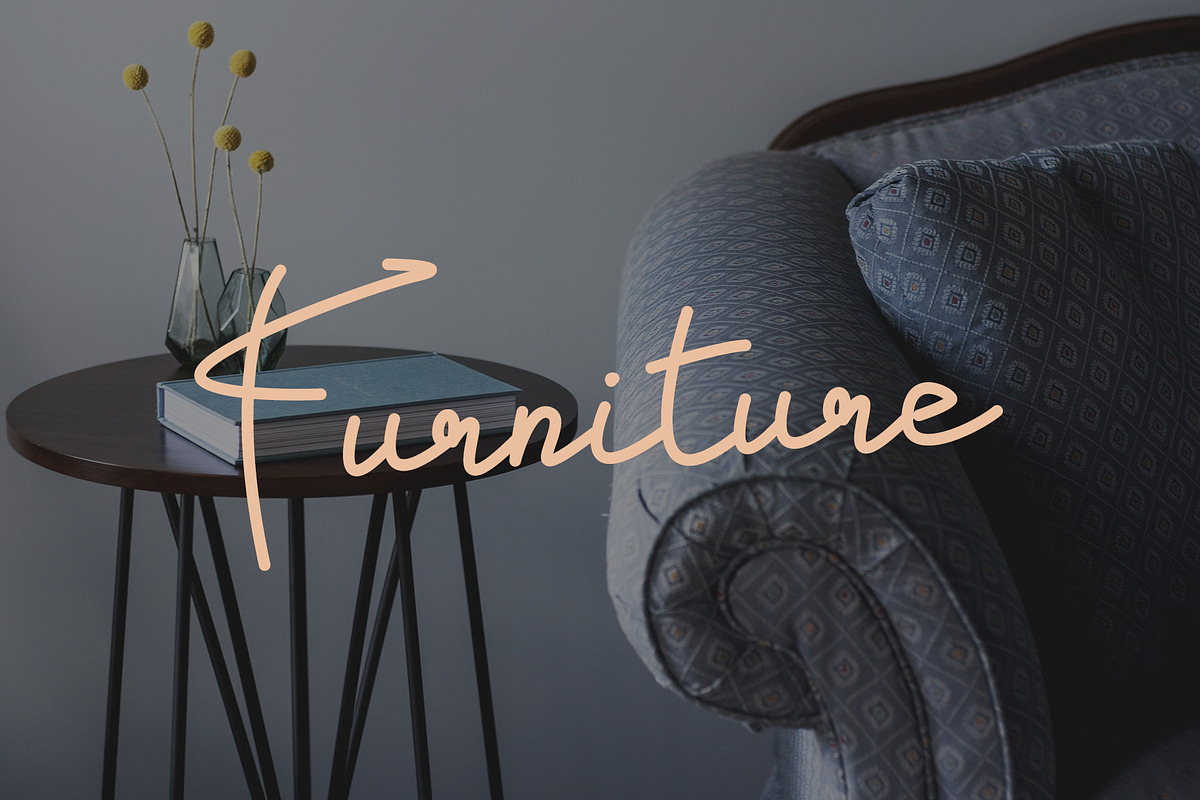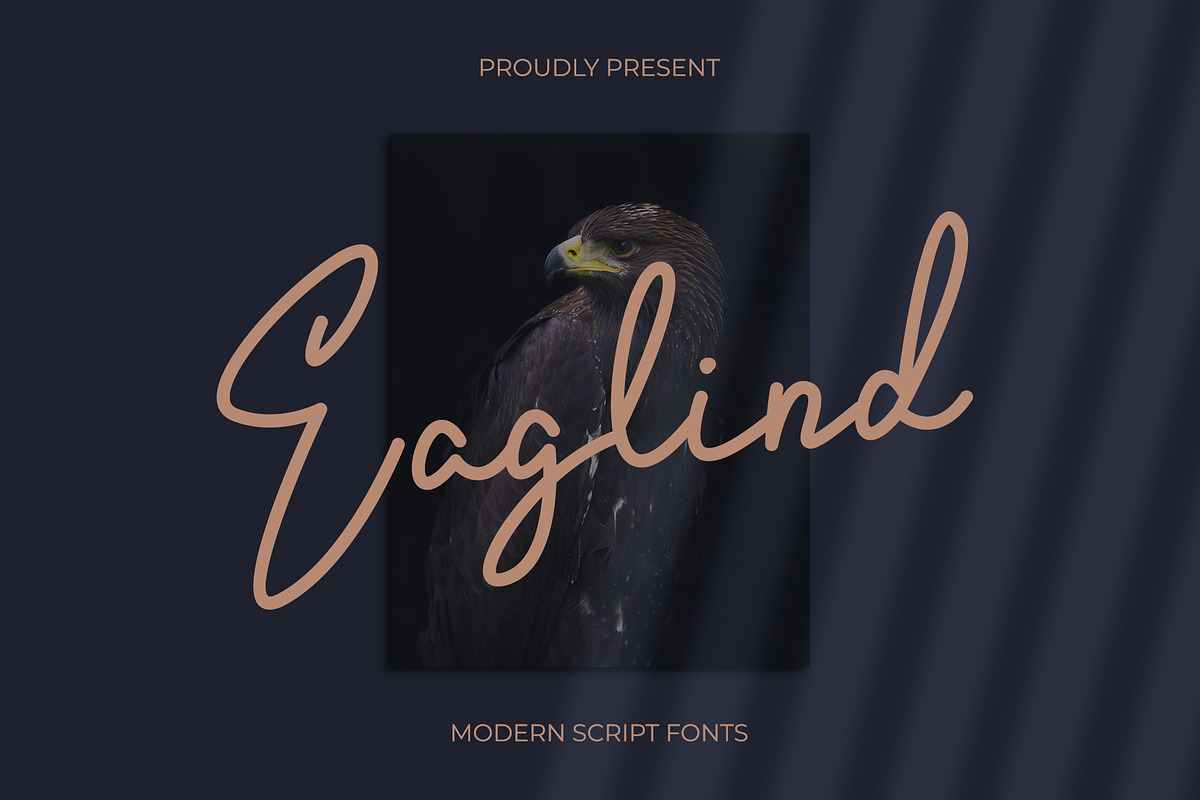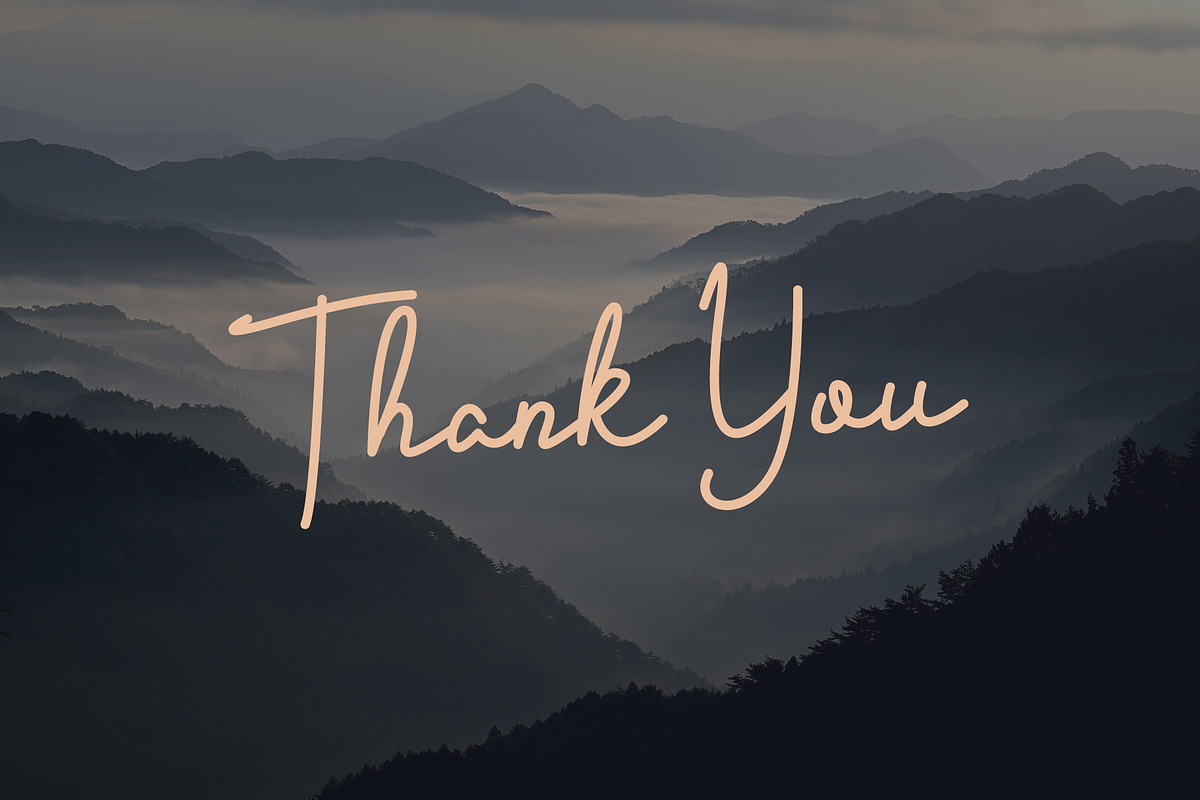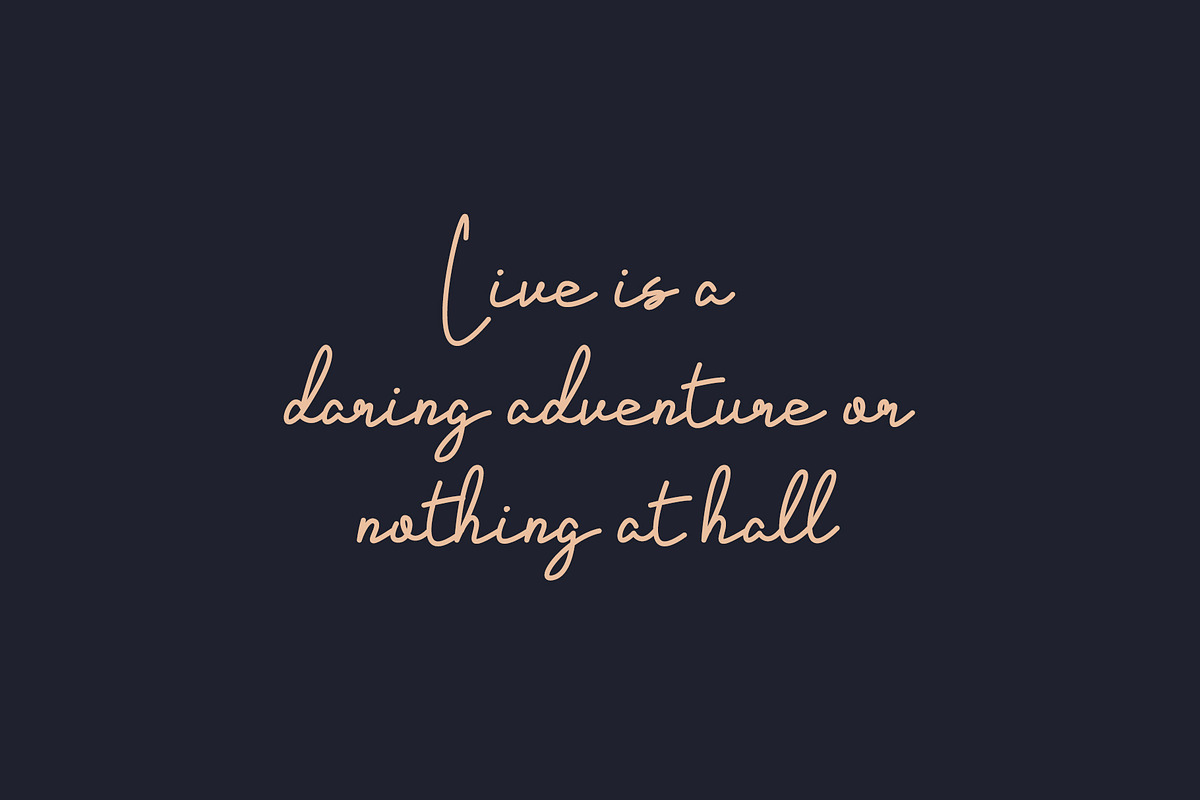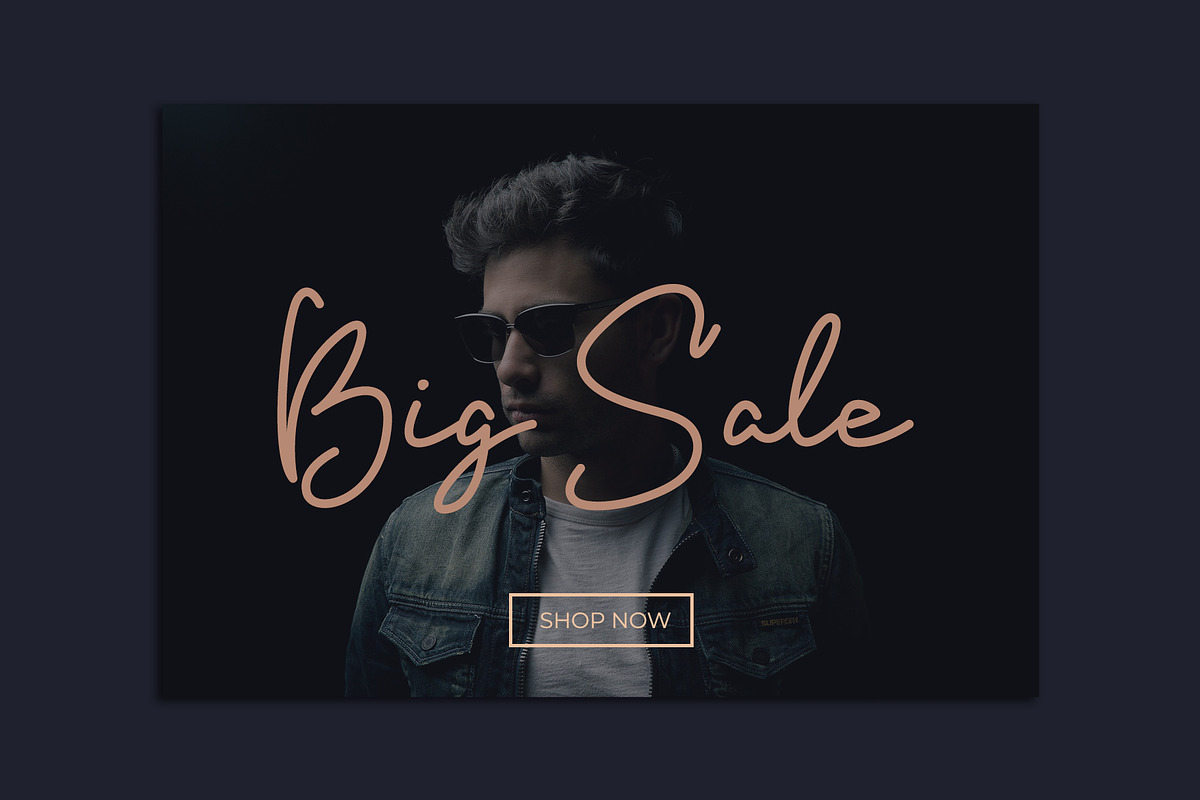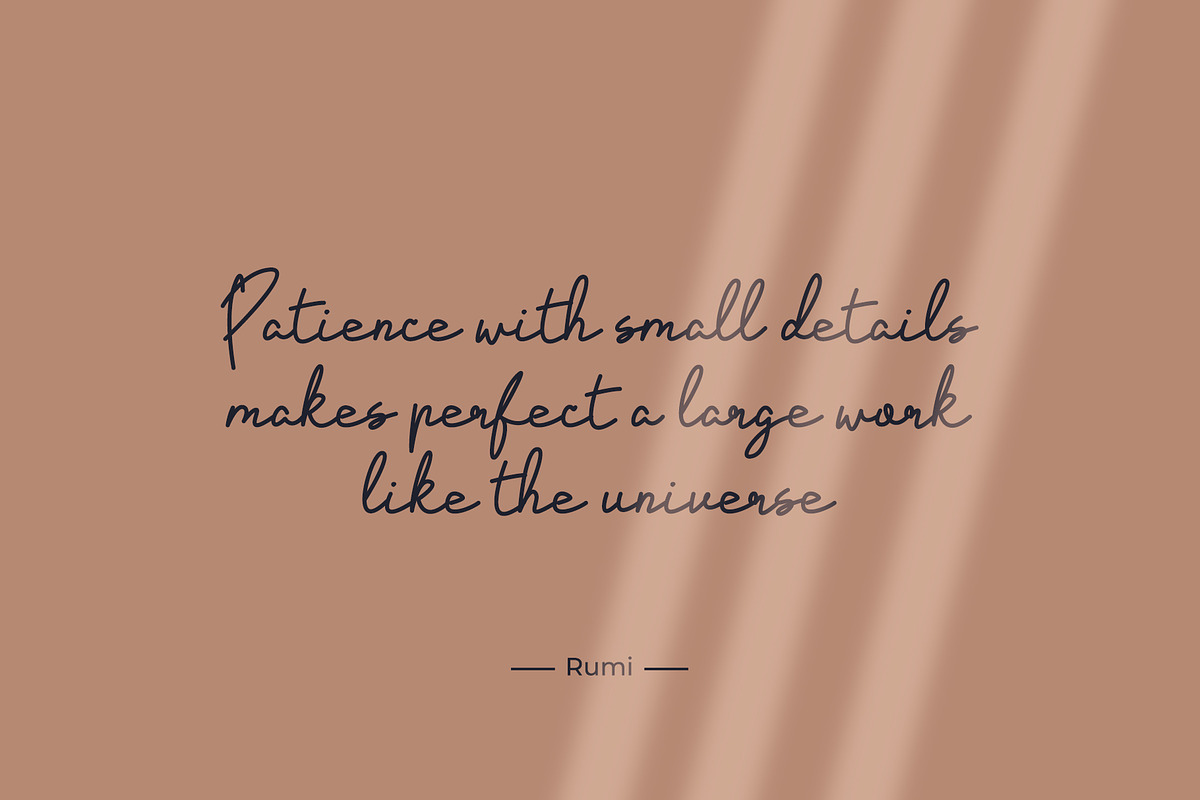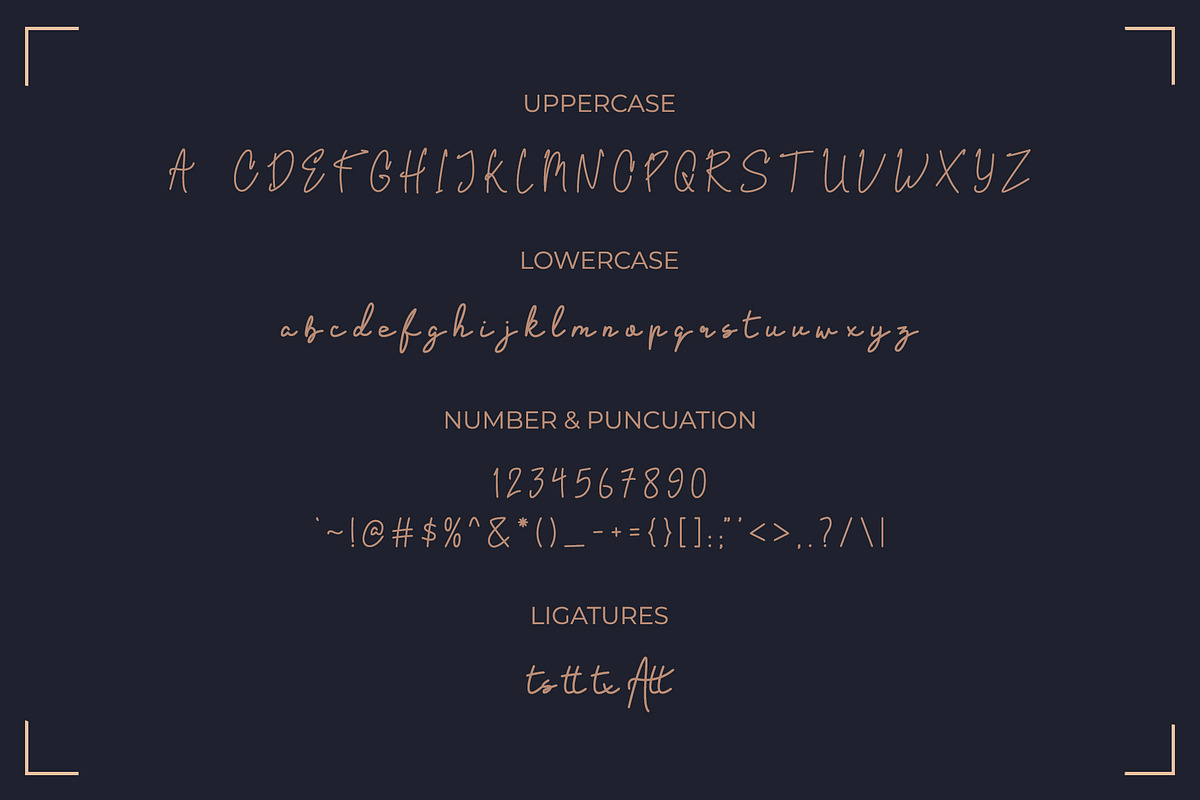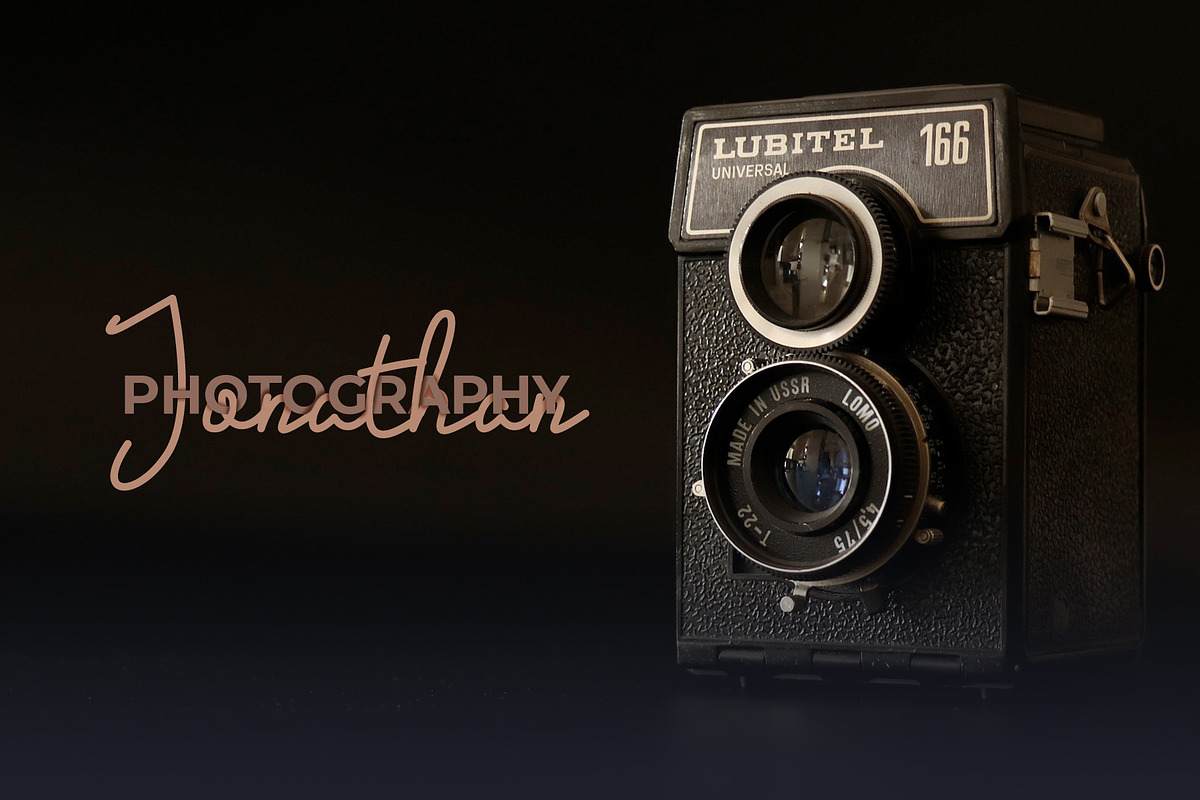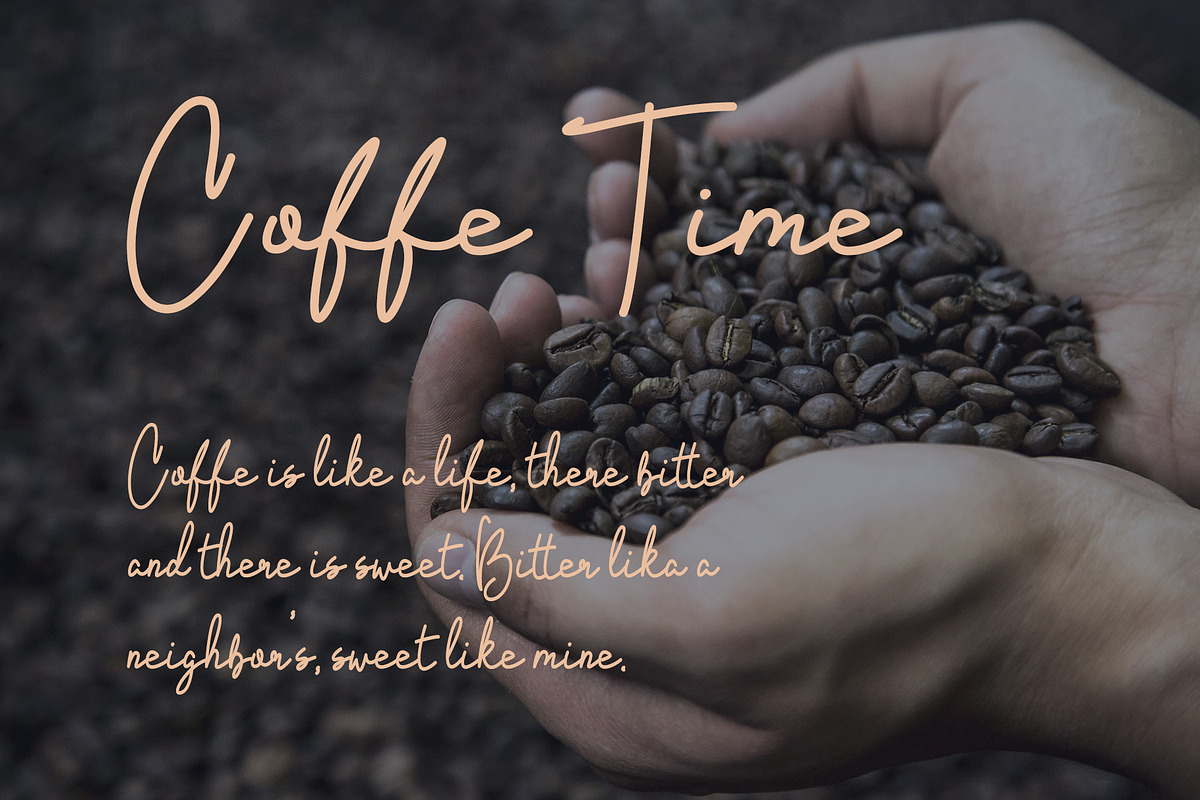
Eaglind | modern script fonts
Eaglind
Eaglind is a modern script font with a signature style. The font is very suitable for quote messages, book covers, presentation covers, branding, logo watermarks, and others.